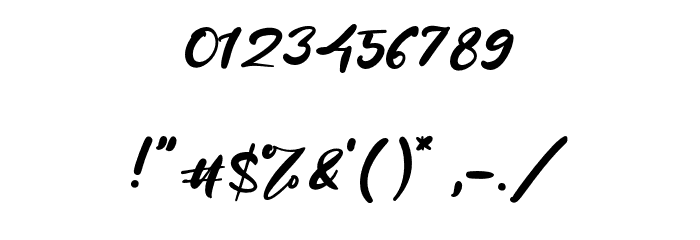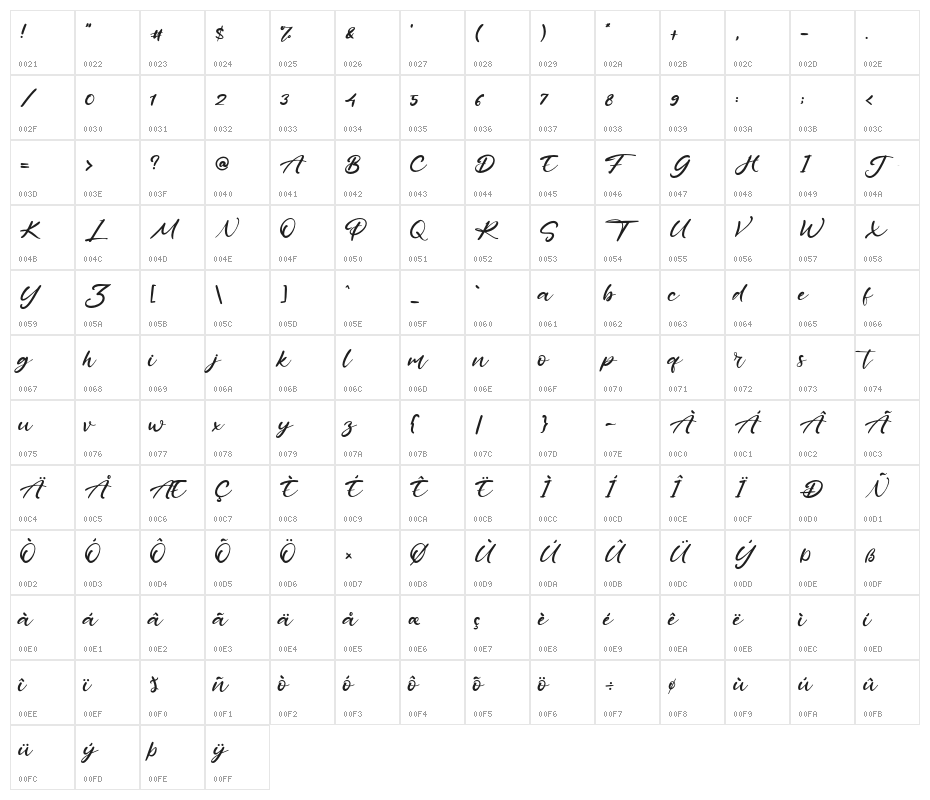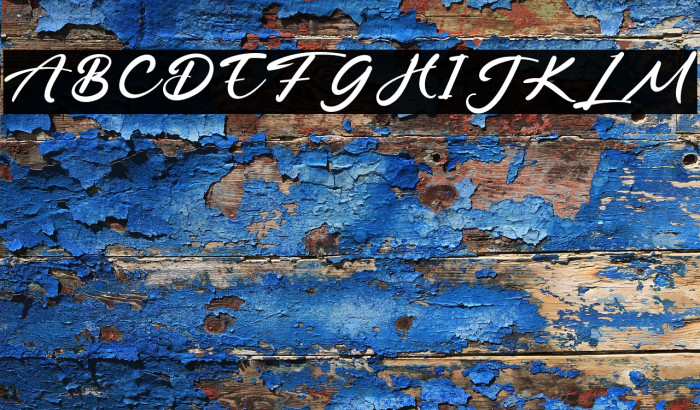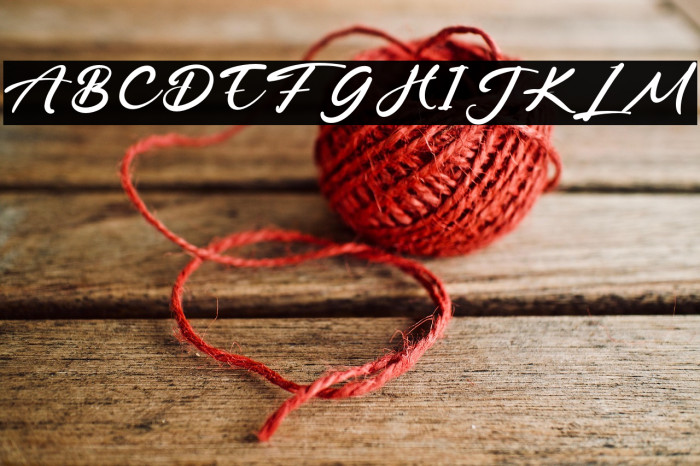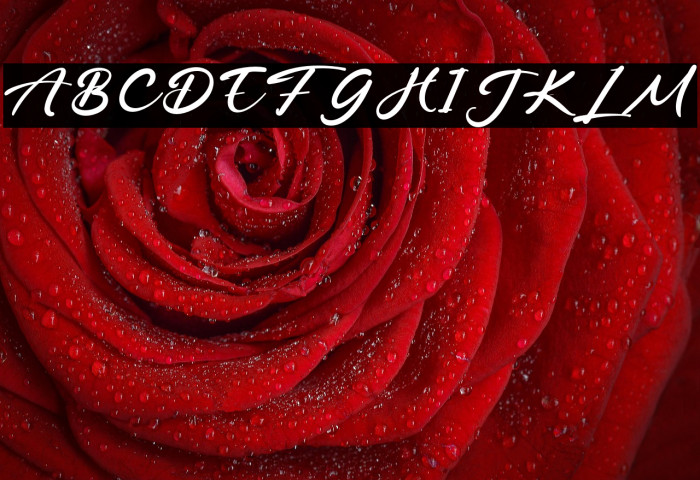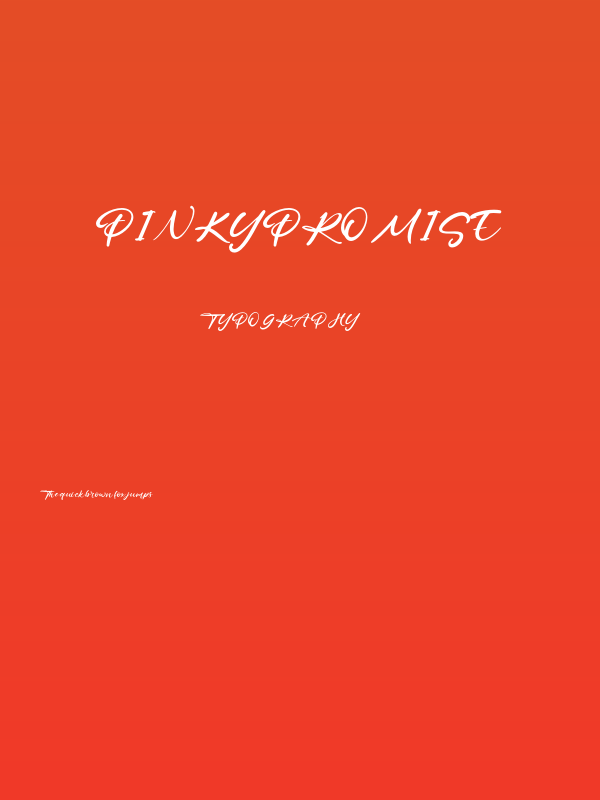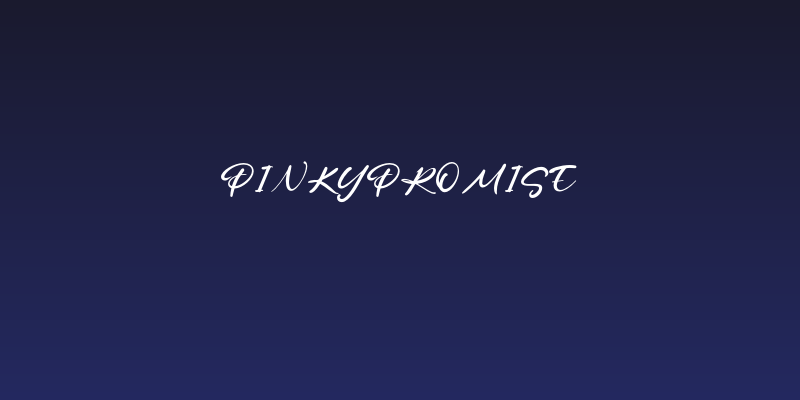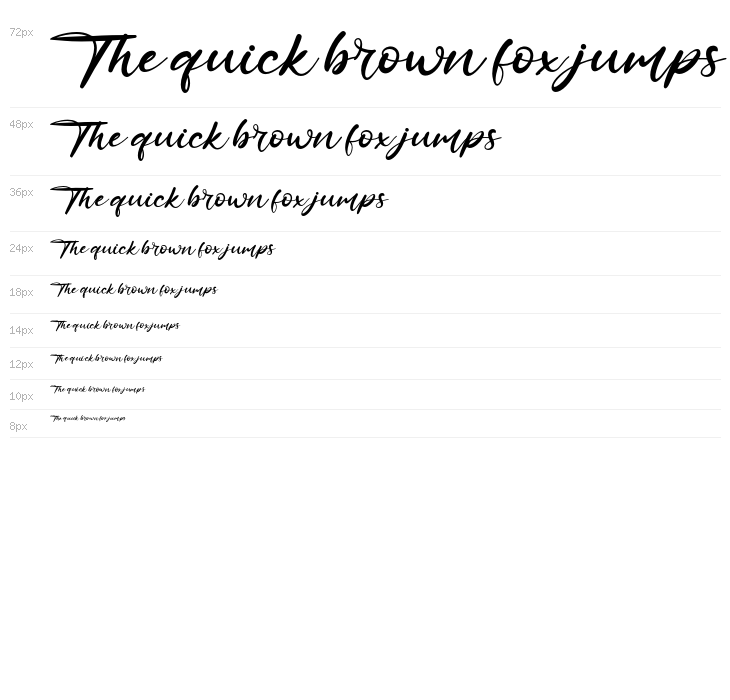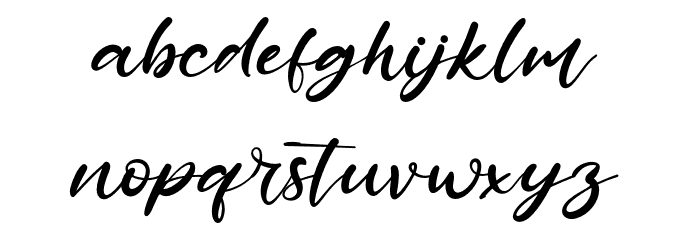
PinkyPromise Font
PinkyPromise Description
This font exudes a sense of elegance and fluidity, characterized by its cursive, handwritten style. The letters are connected in a smooth, flowing manner, reminiscent of traditional calligraphy. The strokes vary in thickness, adding a dynamic and lively feel to the text. The uppercase letters are slightly more elaborate, with graceful swashes and loops, while the lowercase letters maintain a consistent rhythm and balance. The numerals and special characters are designed to complement the overall aesthetic, ensuring a cohesive look across all elements. This font is perfect for projects that require a personal, artistic touch.
| Overall Style | Elegant, Artistic |
| Proposed Projects | Ideal for wedding invitations, greeting cards, branding, and artistic projects that require a personal touch. |